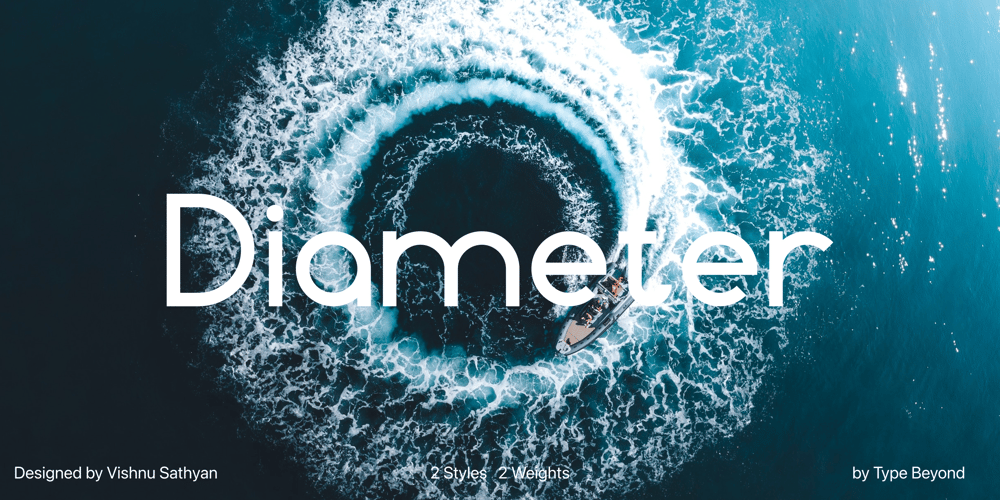
Diameter Font Family was designed by Vishnu Sathyan and published by Vishnu Sathyan. Diameter contains 4 styles and family package options. The idea of symmetry came to me when I was lookig for a geometric sans font. None of the things that I found did have the mathematically perfect symmetry. So, I went ahead and created one. I have used complex mathematical equations to get the perfect angle in every letter. Diameter comes with two styles square corner and rounded corner, each with regular and bold weights.